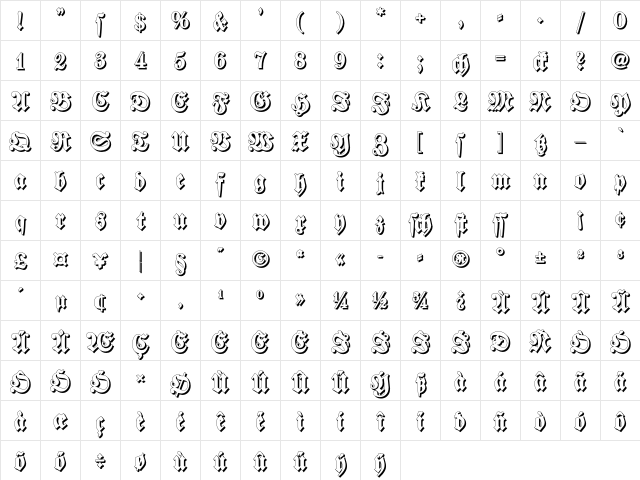
Complete Walbaum-Fraktur Shadow Bold glyph index. Displaying only characters natively supported by Walbaum-Fraktur Shadow Bold font.
Walbaum-Fraktur Shadow draws on the rich tradition of blackletter calligraphy, with dense, angular strokes that evoke medieval manuscripts and old-world craftsmanship. Its bold stroke weight gives it real presence on the page.
Font Pairing: Pair with a clean neutral sans-serif for body copy to let Walbaum-Fraktur Shadow's character lead without overwhelming the composition.
Pro Tip: Reserve Walbaum-Fraktur Shadow for display and logo use - pair it with a clean sans-serif for body copy to prevent the composition from feeling oppressive.